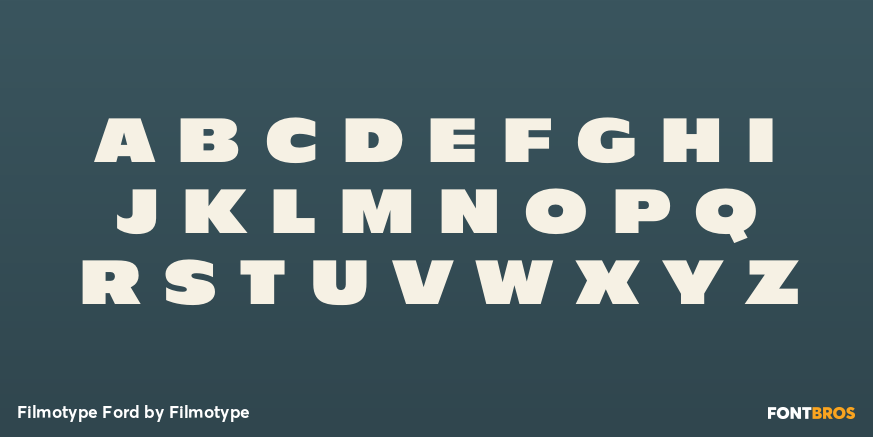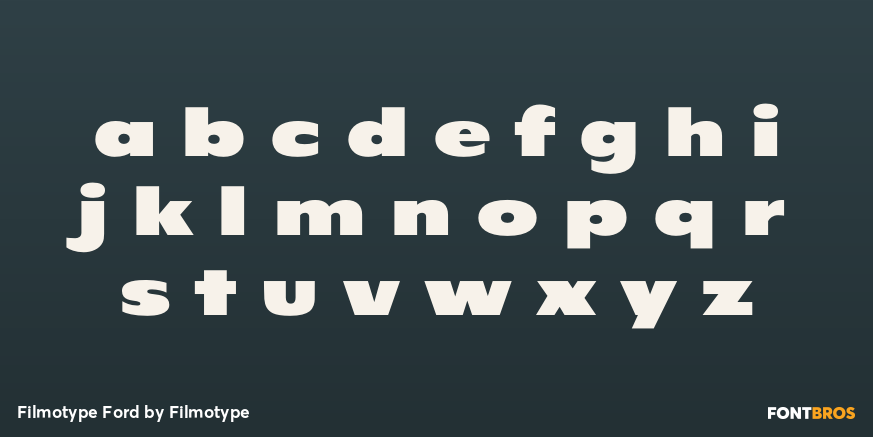
Filmotype Ford
Font Family by Filmotype
Buy NowInitially designed in the early-to-mid 1950s and likely inspired by the styles made popular by Lettering, Inc, Filmotype Ford solves the needs of customers looking for a more heavy duty sans serif style with a 1940s sensibility. Even with its ultra wide characters, Filmotype Ford retains its legibility at a variety of sizes. Remastered and expanded with exacting precision from the original filmstrips, Filmotype Ford includes a full international character complement, automatic fractionals, ordinals, and a suite of alternate forms in dynamic OpenType format.